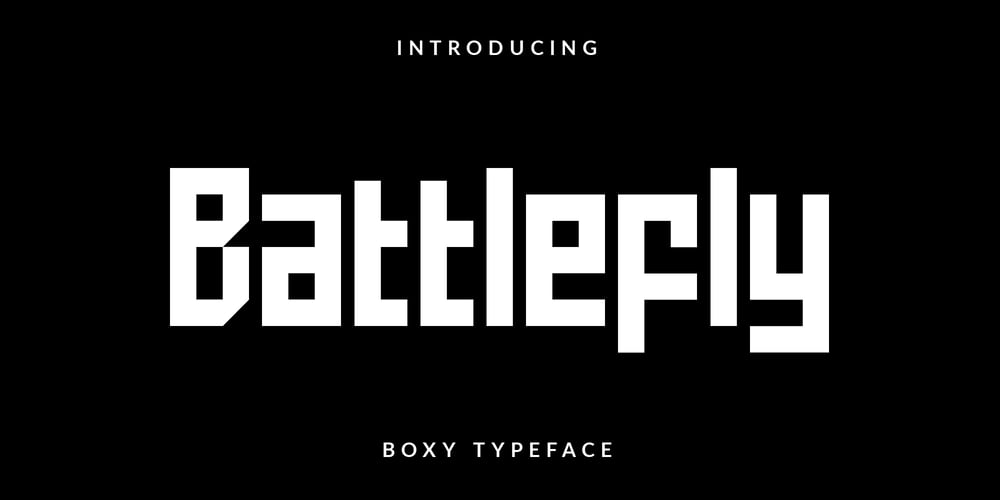
Battlefly Font Family was designed by Fiki Ahmadi and published by Dicubit. Battlefly contains 1 styles and family package options. Battlefly is a boxy typeface/font designed with carefully handcrafted. This perfectly made to be applied in logo or branding, stationery, books, packaging, fashion, magazines, t-shirt, novels, labels and many advertising purposes. Features:UppercaseLowercaseNumberPunctuationSymbolMultilingualAll the pictures used in the preview are not included. They are intended only for illustration purpose.